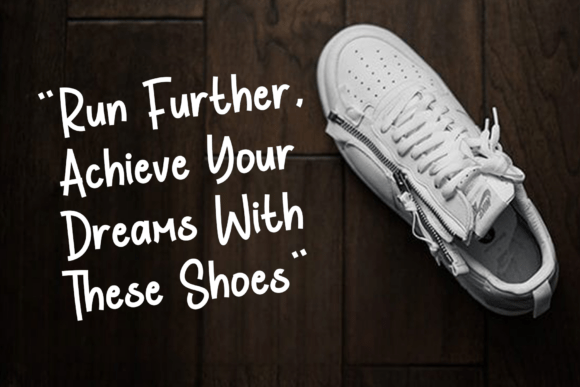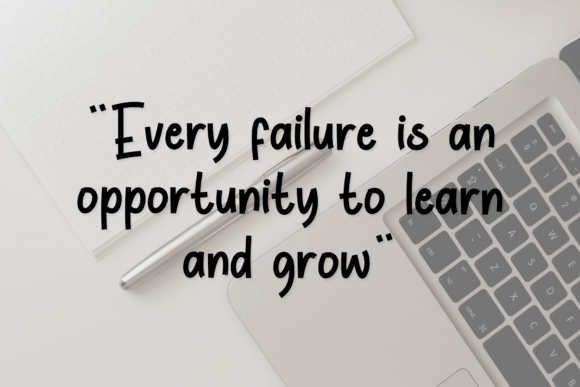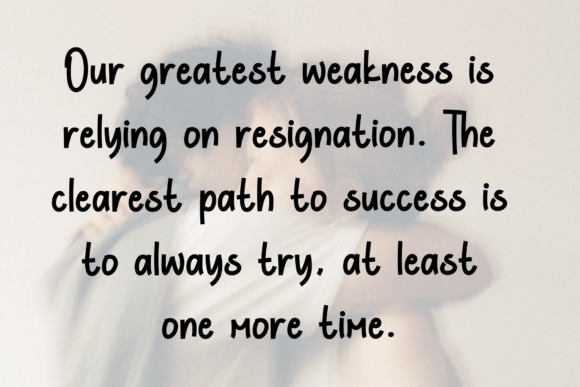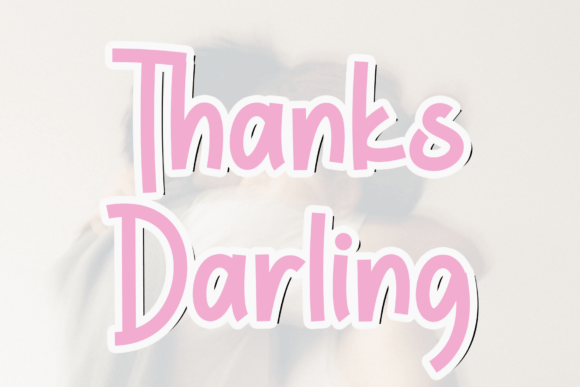
Falling Inlove Font: The Perfect Typeface for Modern Romance
Are you looking for a font that captures the essence of modern romance? Look no further than the Falling Inlove font, a unique and playful typeface that is sure to make your designs stand out. With its chunky, rounded block letters and whimsical, bouncy baseline, this font is perfect for anyone who wants to add a touch of romance and whimsy to their projects.
A Font that Exudes Modern Romance
The Falling Inlove font is designed to deliver a bold, playful dose of modern romance. Its thick, soft forms make it an ideal choice for Valentine’s Day projects, romantic social media graphics, personal gifts, feminine branding, and any design that requires a sweet, energetic, and contemporary display. Whether you’re a designer, crafter, or simply someone who loves to create, this font is sure to inspire you to create something beautiful.
Unique Characteristics
So, what makes the Falling Inlove font so unique? For starters, its chunky, rounded block letters are unlike anything you’ve seen before. The slightly whimsical, bouncy baseline adds a touch of playfulness, making this font perfect for designs that require a bit of personality. And when presented with a clean outline, as seen in the preview, the Falling Inlove font achieves a high-impact, layered look that’s perfect for grabbing attention.
The Falling Inlove font is incredibly versatile, making it perfect for a wide range of projects. Here are just a few ideas to get you started:
- Valentine’s Day projects: Create romantic cards, gift tags, and decorations that are sure to impress.
- Romantic social media graphics: Add a touch of whimsy and romance to your social media posts with this beautiful font.
- Personal gifts: Create personalized gifts, such as customized mugs, t-shirts, and phone cases, that are sure to delight.
- Feminine branding: Add a touch of elegance and sophistication to your brand with this beautiful font.
Why Choose the Falling Inlove Font?
So, why choose the Falling Inlove font over other typefaces? Here are just a few reasons:
- Unique and playful: This font is unlike anything you’ve seen before, making it perfect for designers and crafters who want to stand out.
- Versatile: The Falling Inlove font can be used for a wide range of projects, from romantic social media graphics to feminine branding.
- Easy to read: Despite its playful nature, this font is incredibly easy to read, making it perfect for designs that require a clear message.
Tips for Using the Falling Inlove Font
Here are a few tips for getting the most out of the Falling Inlove font:
- Experiment with different colors: This font looks beautiful in a variety of colors, so don’t be afraid to experiment and find the perfect hue for your design.
- Pair with other fonts: The Falling Inlove font pairs beautifully with other fonts, so try combining it with a simpler font for a unique look.
- Use it sparingly: While this font is perfect for grabbing attention, it can be overwhelming if used too much. Use it sparingly to add a touch of whimsy and romance to your designs.
In conclusion, the Falling Inlove font is a unique and playful typeface that is sure to add a touch of modern romance to your designs. With its chunky, rounded block letters and whimsical, bouncy baseline, this font is perfect for Valentine’s Day projects, romantic social media graphics, personal gifts, feminine branding, and any design that requires a sweet, energetic, and contemporary display. So why wait? Fall head over heels for the Falling Inlove font and start creating beautiful designs today!